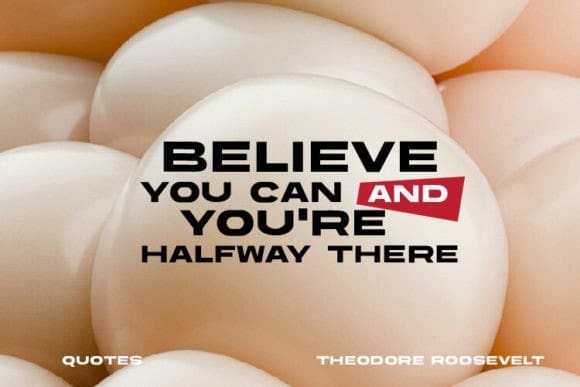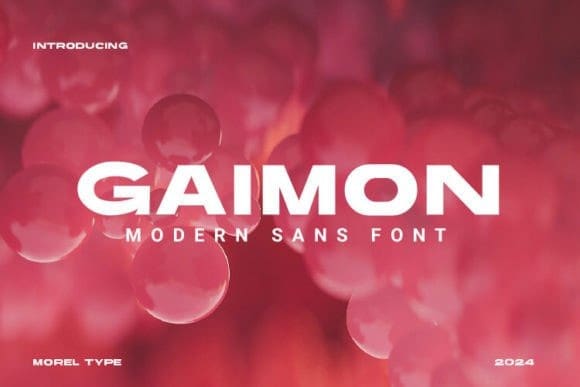
Gaimon Font
Gaimon Font, is a contemporary, wide, large sans-serif font that exudes professionalism and strength. Its large, wide lines make it an ideal choice for today’s digital and print designs, ensuring readability and visual impact. With its versatile and modern aesthetic, Gaimon is perfect for conveying a bold and powerful impression.